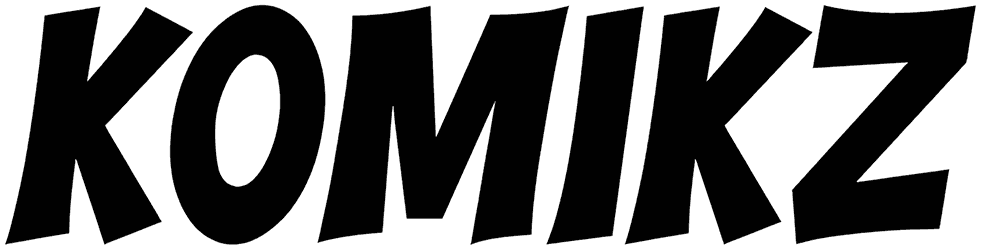
By using a comic font such as Trailer Park Girl, you can spark the interest of your audience and simply draw their attention to contents such as posters, brochures, packages, and flyers. Since this cartoon font is designed in a dimensions style, it can convey a sense of innovation, freshness, and dynamic, despite lacking lowercase letters.
Trailer Park Girl
WOODCUTTER